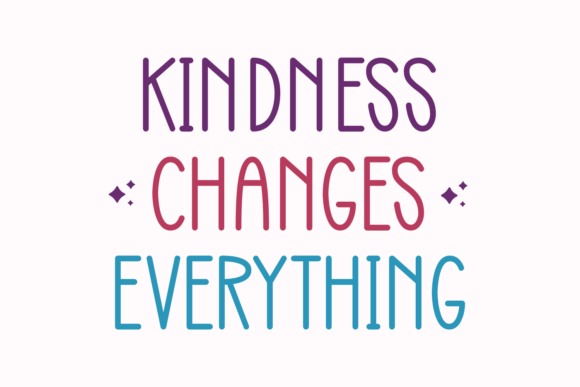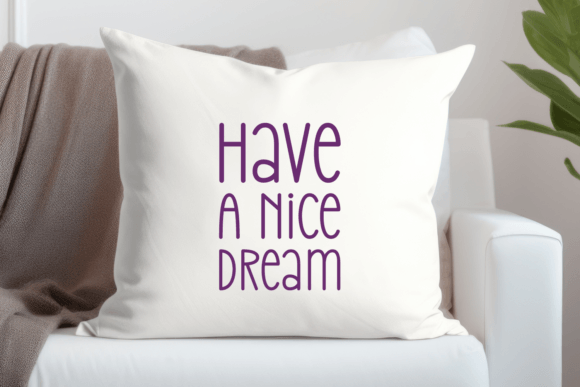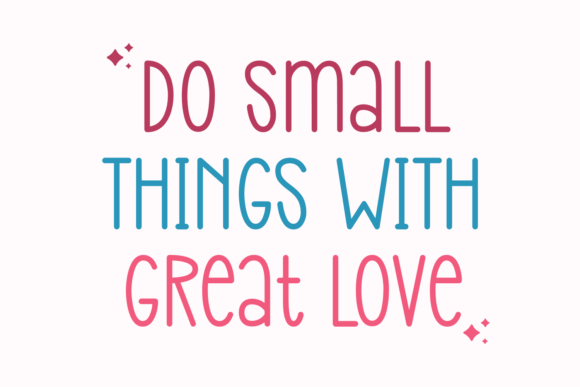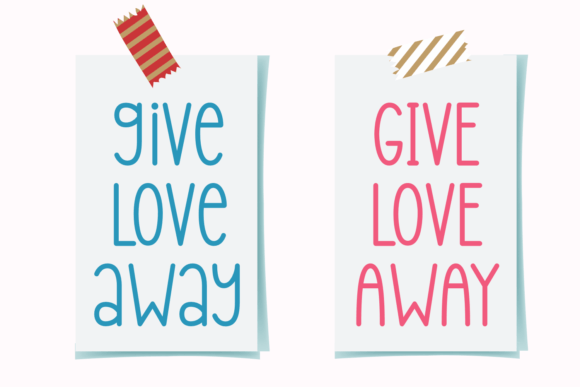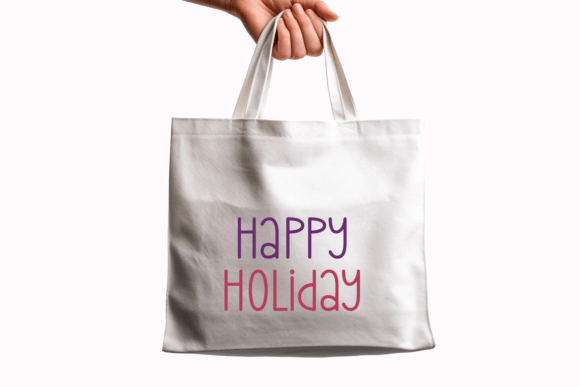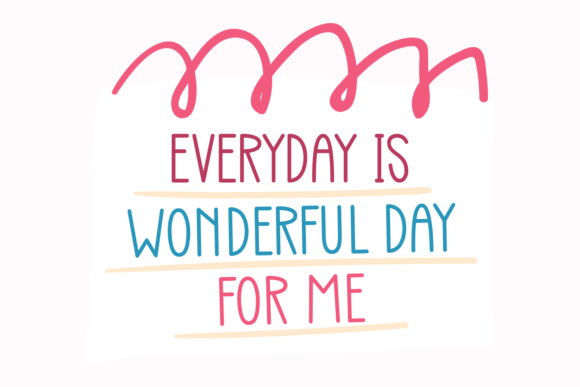
Introduction to Creative Brother Font
Have you ever been working on a creative project and wished you had the perfect font to bring it to life? Maybe you’ve spent hours scouring through design resources, searching for that one font that exudes the right amount of elegance and sophistication. If you’re like many designers, you’re constantly on the lookout for high-quality fonts that can elevate your designs and make them truly stand out.
That’s where the Creative Brother Font comes in – a stunning minimalist handwritten font that’s sure to become your new go-to design resource. With its clean lines, uniform strokes, and balanced proportions, this font offers a fresh and contemporary look that’s perfect for a wide range of design applications, from branding and packaging to social media graphics and personal projects.
Whether you’re looking for a font to download for free or want to add a touch of understated elegance to your designs, the Creative Brother Font is an excellent choice. Its transparent background and high-quality design make it easy to work with, and its versatility ensures that it will always be a valuable addition to your design arsenal.
Key Features of Creative Brother Font
- Unique, bold, and modern font style ideal for various design applications.
- Perfect for creative professionals and enthusiasts looking for a distinctive design element.
Honest Review: Creative Brother Font
As a designer, I’m always on the lookout for unique and high-quality design resources to elevate my creative projects. The Creative Brother Font caught my eye with its quirky, hand-drawn style, making it a perfect fit for any design that needs a touch of personality.
- ✨ High-quality design with crisp lines and detailed illustrations.
- ✨ Excellent for use in creative projects, such as logos, posters, and flyers.
- ⚠️ Limited font combinations available, which may limit its use in complex design projects.
- ⚠️ May not be suitable for use in formal or professional settings due to its playful style.
Overall, I’m impressed with the Creative Brother Font’s unique design and versatility. While it may have some limitations, it’s a fantastic design resource for anyone looking to add some personality to their creative projects. With its high-quality design and free download option, it’s definitely worth checking out.
Tips for Getting the Most Out of Creative Brother Font
To get the most out of the Creative Brother Font, experiment with different font sizes, colors, and styles to create a unique and eye-catching design. Use the font in conjunction with other design resources to add depth and interest to your design.
The Creative Brother Font is ideal for use in creative projects, such as infographics, posters, and social media graphics. Its high-quality design and transparent background make it perfect for use in design applications where a clean and professional look is required.